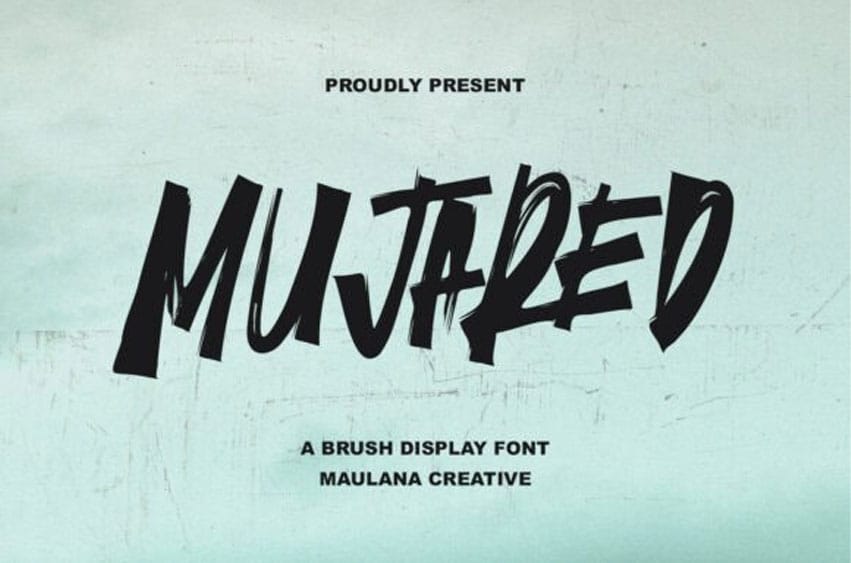
Mujared Font Brush Display Font is a bold and expressive typeface that captures the raw energy of hand-painted strokes. With its jagged edges, dynamic movement, and textured brush finish, this font embodies a sense of power and spontaneity. Each letter is crafted to feel organic and untamed, making it perfect for projects that demand impact and individuality.
Designed for headlines, posters, album covers, sports branding, streetwear, and digital media, Mujared thrives in settings where attitude and intensity are key. Its ligatures, alternate characters, and multilingual support provide flexibility, while the rough brush aesthetic ensures that every design feels authentic and attention-grabbing. Mujared is not just a font—it’s a statement of creativity and strength.